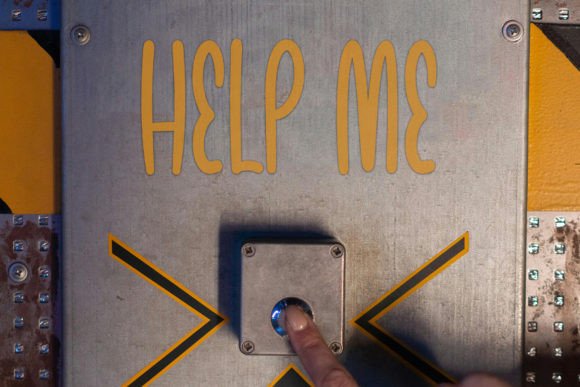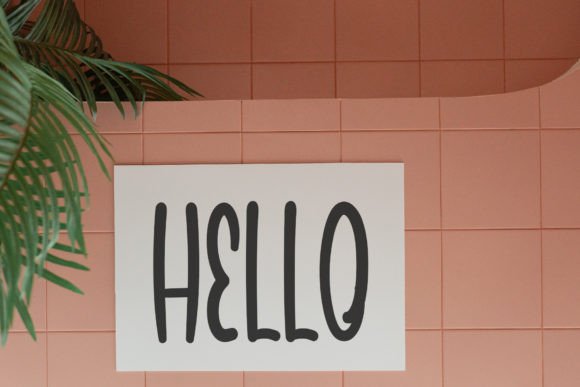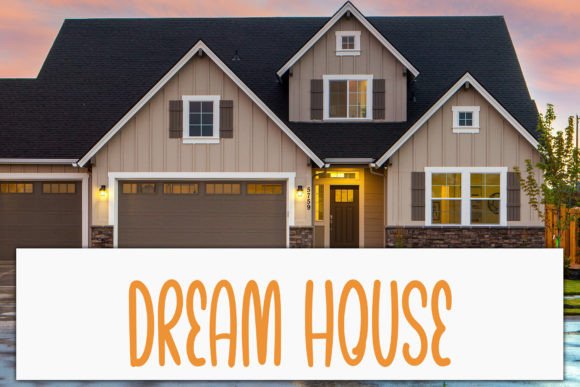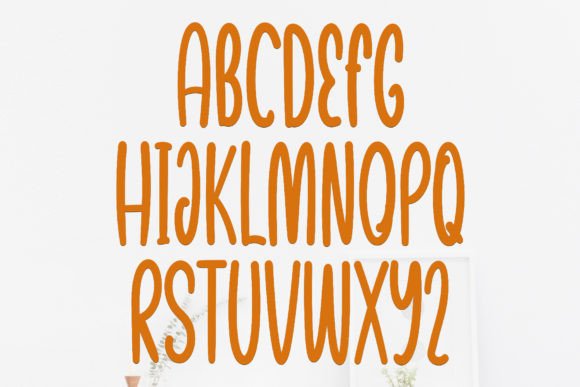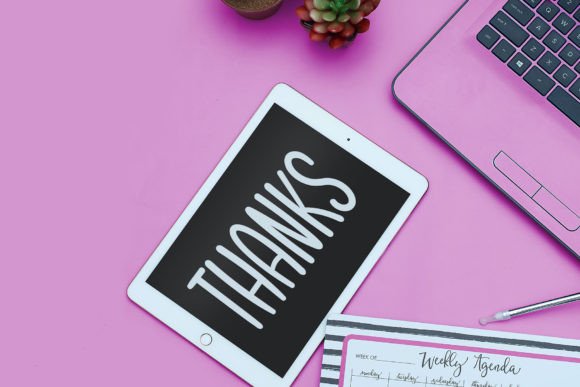
Introduction to Important Warning Font
Important Warning is a modern display design including Regular.
This font is casual and beautiful with swashes Can be used for various purposes such as logos, product packaging, wedding invitations, branding, headlines, signage, labels, signatures, book covers, posters, quotes, and much more.
Key Features of Important Warning Font